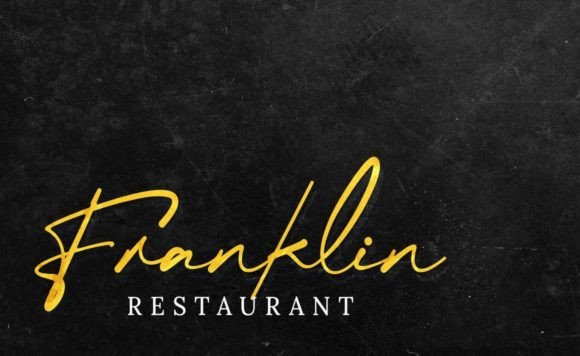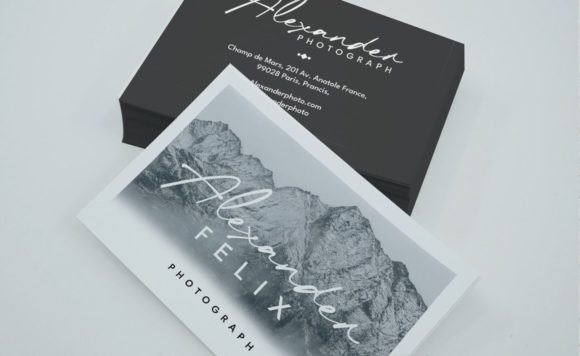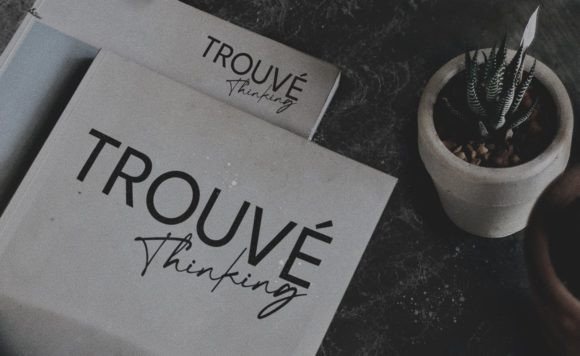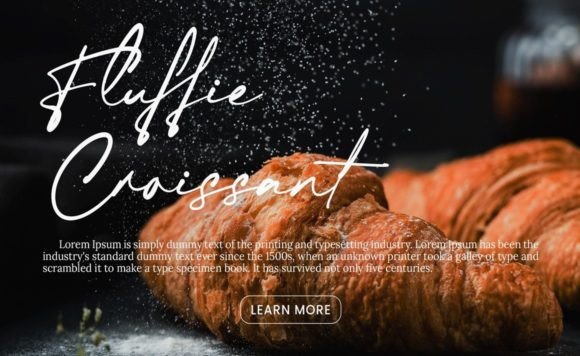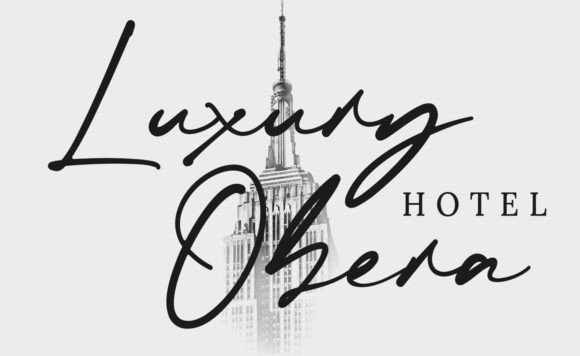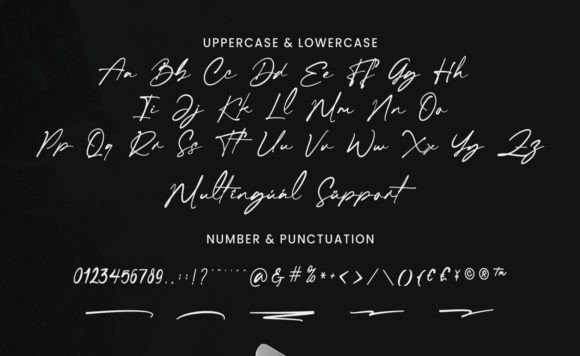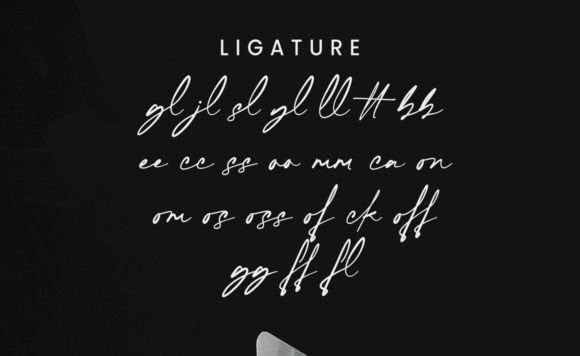
Checkbold Font
About Checkbold Font
“Checkbold” is a handwritten font characterized by its smooth, modern, and organic design. Its fluid and natural appearance makes it a versatile choice for a wide range of design projects. Whether you’re working on logos, brands, products, websites, or any other creative endeavor, “Checkbold” adds a touch of sophistication and uniqueness, capturing the attention of anyone who sees it.
The font’s smooth and contemporary style gives your text a polished and elegant look. Its organic design creates a sense of fluidity, making your content visually appealing and easy to read. “Checkbold” seamlessly integrates into various design contexts, enhancing the overall visual impact of your projects.
One of the notable features of “Checkbold” is its PUA encoding, which grants easy access to a wide array of glyphs and swashes. This versatility allows you to customize and personalize your designs effortlessly. Whether you want to add decorative elements or unique characters, “Checkbold” offers the flexibility to tailor your creations according to your specific vision.
Incorporating “Checkbold” into your design projects empowers you to create visually captivating and attention-grabbing designs. Its smooth, modern, and organic design elements make it a valuable asset in your creative toolkit. Embrace the font’s versatility and let it enhance your logos, branding, products, websites, and more, ensuring that your creations leave a lasting impression on your audience.